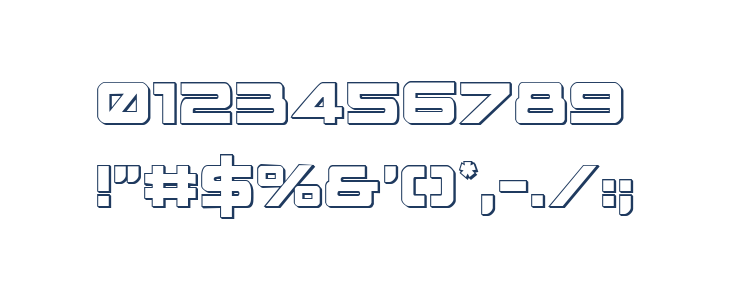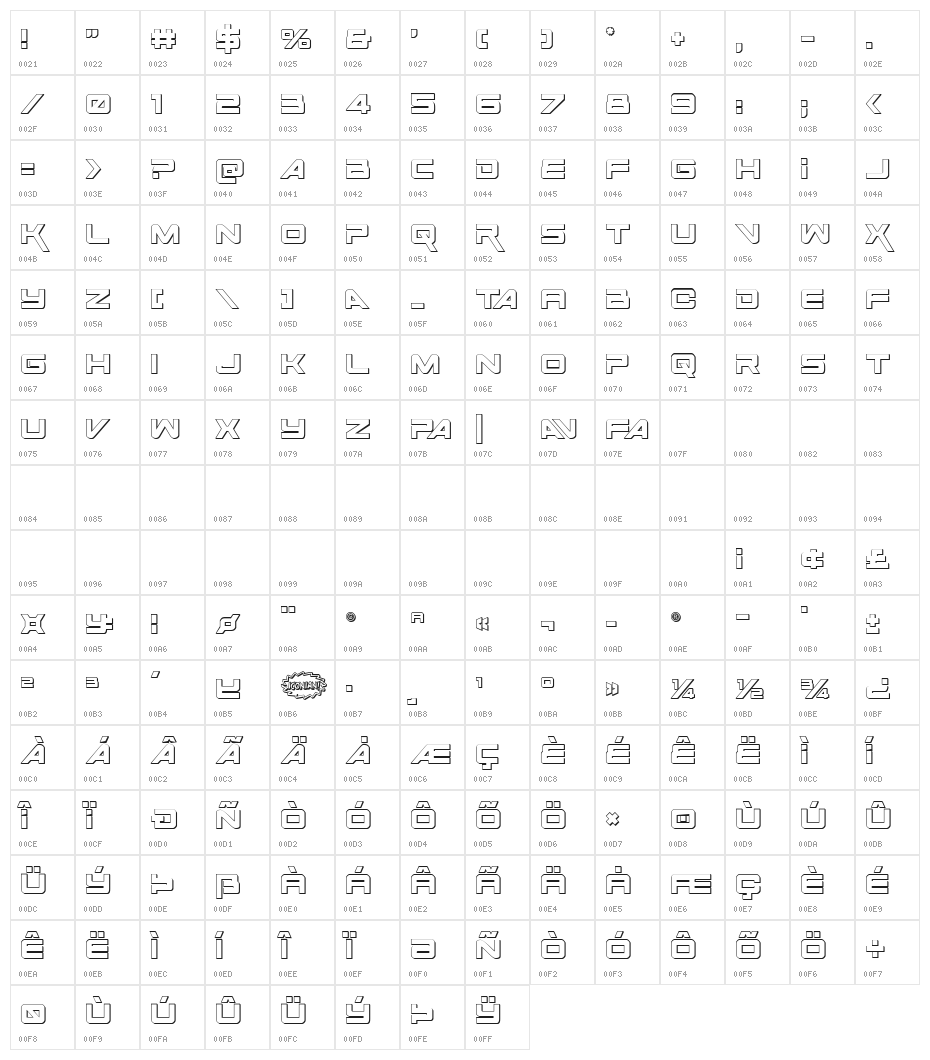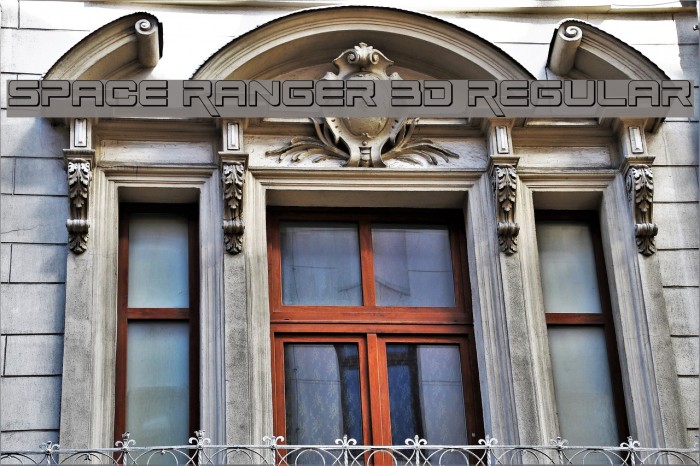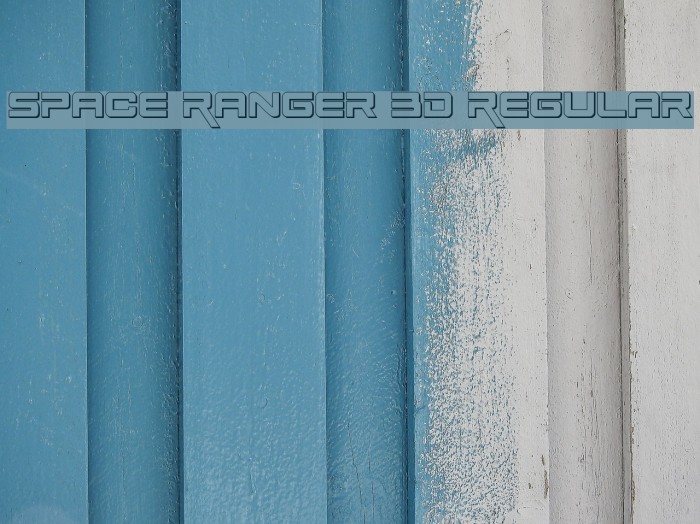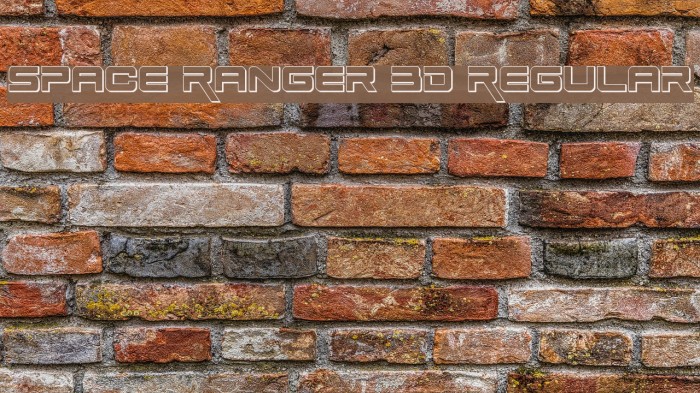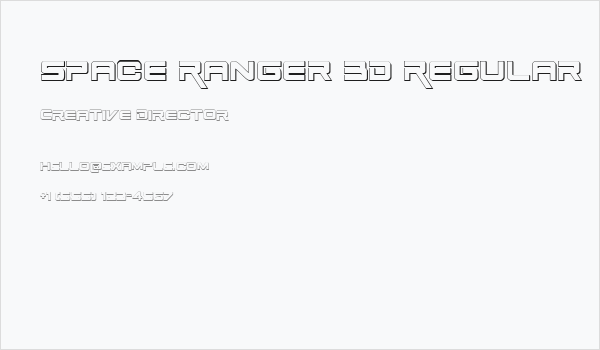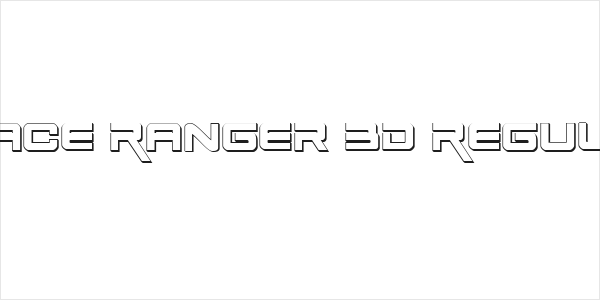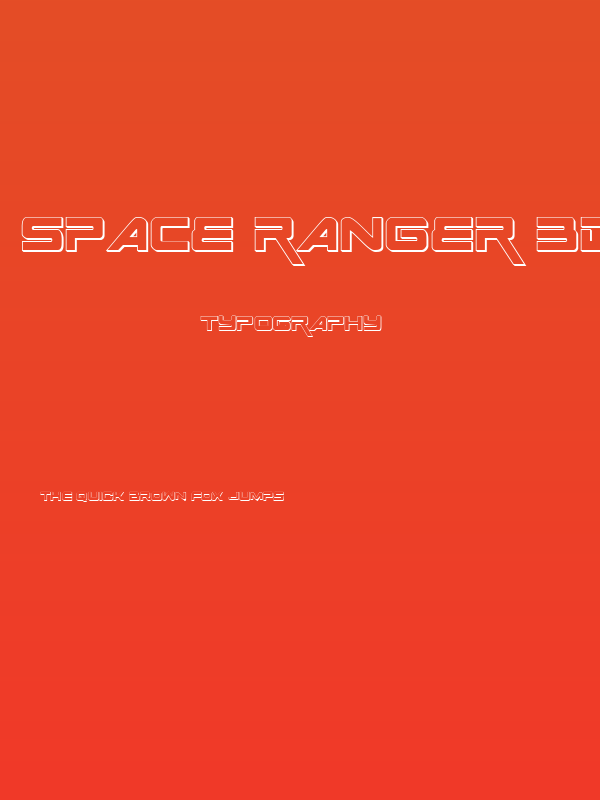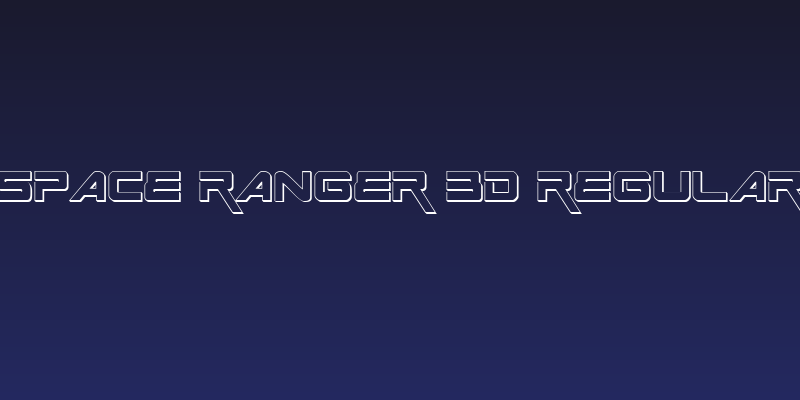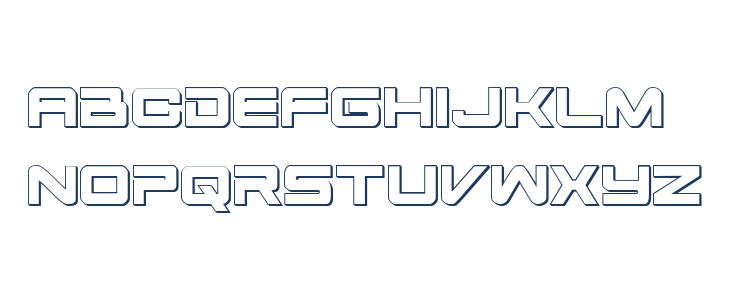
Space Ranger 3D Regular Font
Space Ranger 3D Regular Description
This font features a futuristic and geometric design, characterized by bold, angular lines and a three-dimensional effect. The uppercase letters are distinct with sharp edges and a sense of depth, making them stand out prominently. The lowercase letters maintain the same angular style, ensuring consistency throughout the typeface. Numbers and special characters are designed to match the overall aesthetic, providing a cohesive look. The font's unique style is reminiscent of sci-fi themes, making it ideal for projects that require a modern and technological feel.
| Proposed Projects | Ideal for sci-fi themed projects, video game titles, movie posters, and technology branding. |